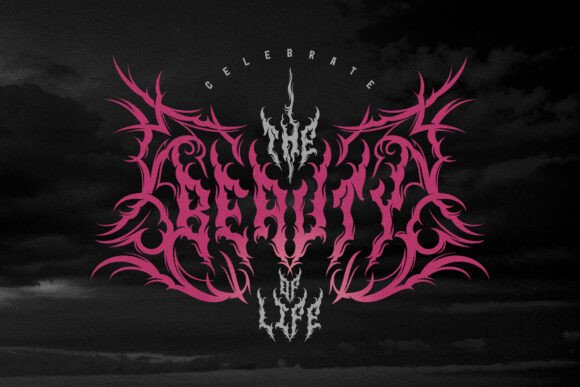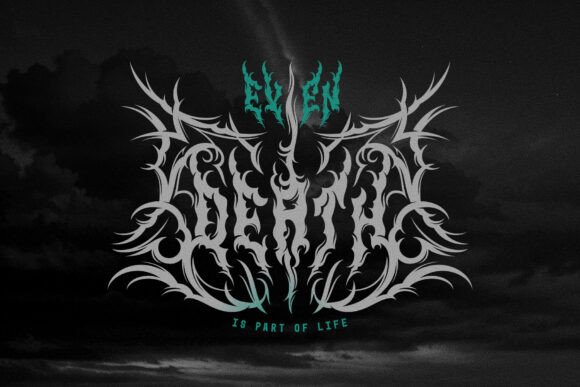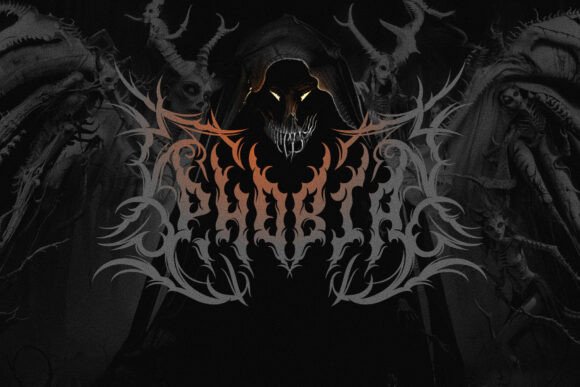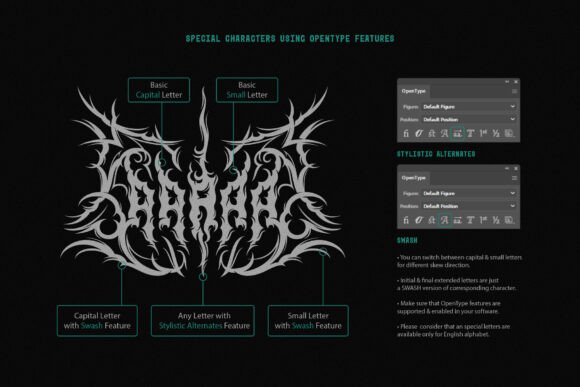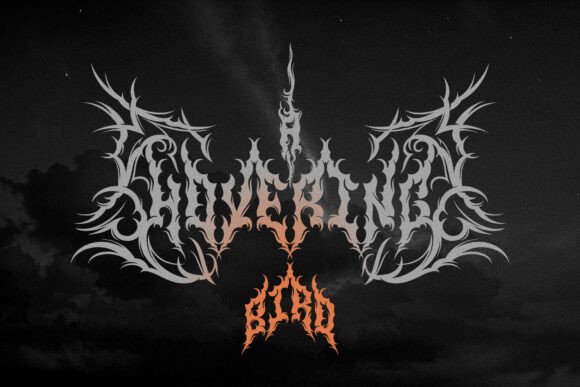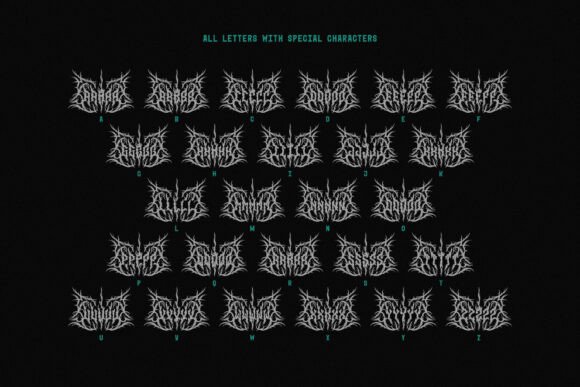
Unleashing the Power of Darkwound Font: A Comprehensive Guide
The Darkwound Typeface: A Bold and Aggressive Font
The Darkwound Typeface is an original font that features sharp and spiky edges, giving it a distinctive shape that’s perfect for creating stunning lettering compositions with a true heavy-metal vibe. The extended special letters in this font are a game-changer, allowing you to add a unique touch to your designs. One of the things I love about Darkwound is its versatility – you can switch between capital and lowercase letters to set the skew direction, giving you even more creative control.
- ✨ Unique and bold design: The sharp and spiky edges of this font make it stand out from more traditional fonts.
- ✅ Highly versatile: With the ability to switch between capital and lowercase letters, you can create a wide range of effects.
- ✅ Supports most European languages: Whether you’re working on a project in English, Spanish, French, or many other languages, Darkwound has got you covered.
However, there are a few quirks to be aware of:
- ⚠️ Special extended letters are only available for the English alphabet: If you’re working with a non-English language, you might not have access to all the special characters.
- 🤔 Requires OpenType features to be supported and enabled: Make sure your design software supports OpenType features to get the most out of Darkwound.
The Darkwound Typeface was designed with the heavy-metal music scene in mind. The designer wanted to create a font that captured the aggressive and bold spirit of the genre. With its sharp and spiky edges, Darkwound is the perfect choice for designers who want to add a touch of rebellion to their work.